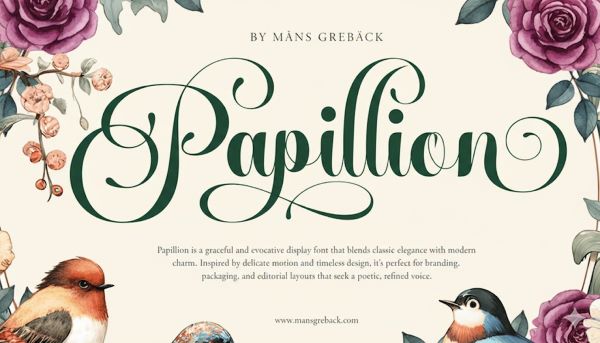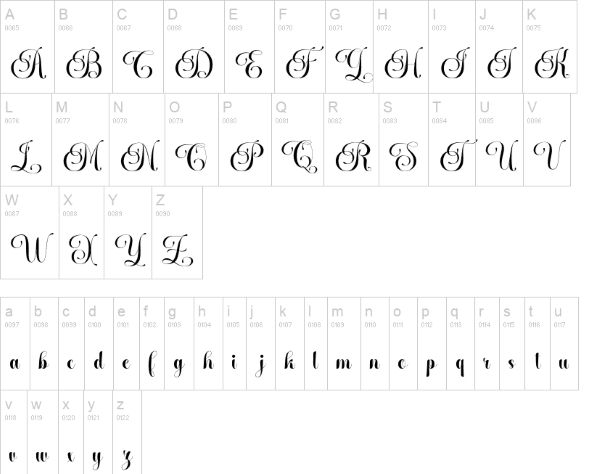
Papillion Font
Papillion Font is an elegant ornamental script infused with French sophistication and theatrical flair. Its refined curves and decorative loops echo the motion of butterfly wings, blending structure with expressive flow. Majestic uppercase letters feature rich flourishes, while smoother lowercase forms ensure graceful readability, making it ideal for luxury branding, invitations, packaging, and artistic typography.
➤ Font Name: Papillion
➤ Designer: Måns Grebäck
➤ Style: Calligraphy